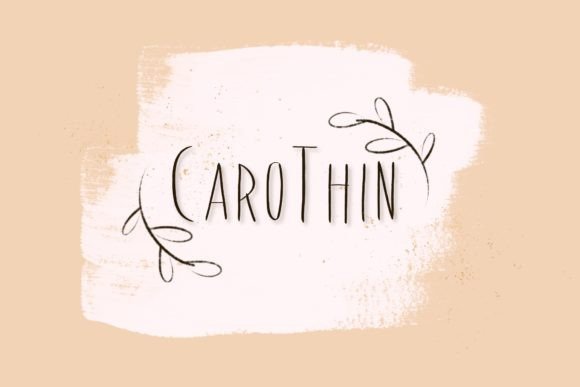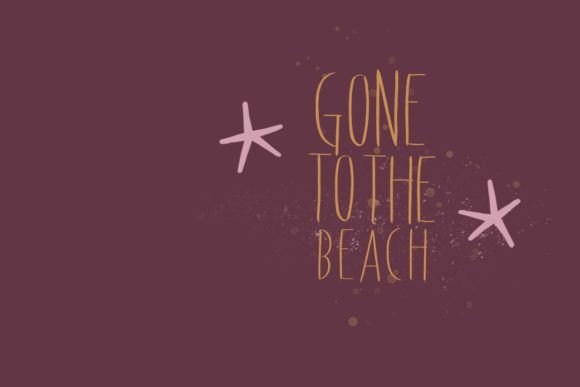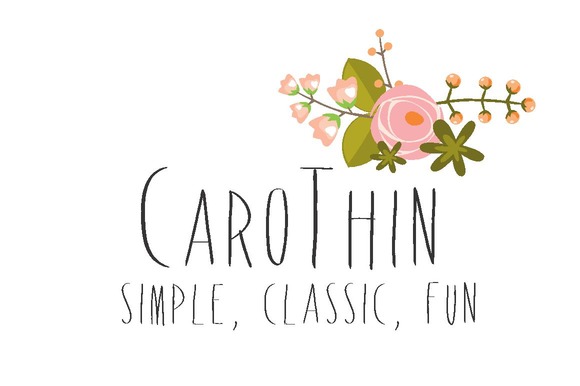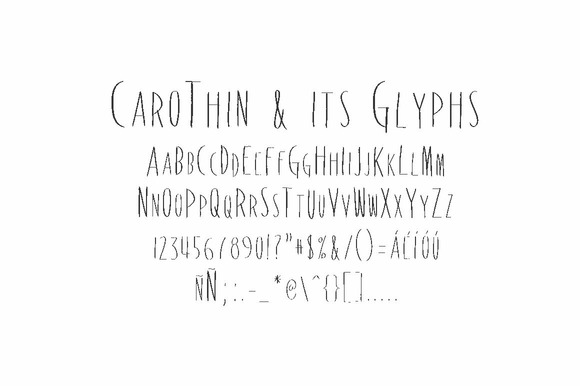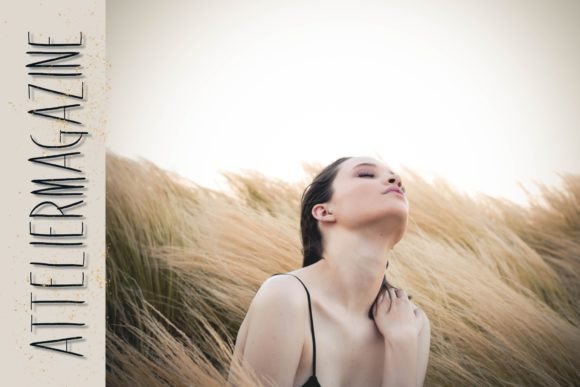
CaroThin Font
About CaroThin Font
Carothin is a simple, fun typeface that will give your design a classic touch. It can be used for various purposes such as headings, logos, invitations, t-shirt designs, greeting cards, posters, labels, book covers, brochures, and much more!